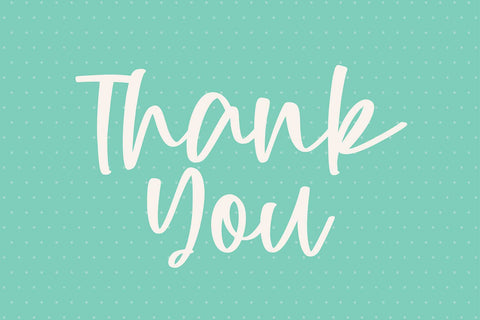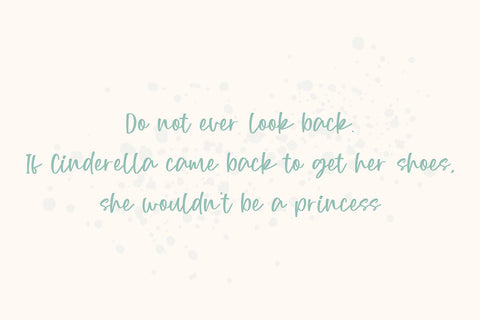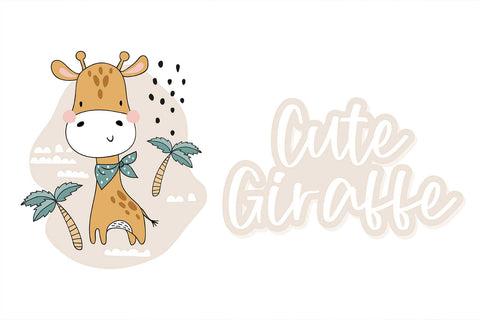
Sunday Morning - A Handwritten Script Font
Sunday Morning is a handwritten script font that perfect for branding, wedding, t-shirt, card, invitation and so much more. this font PUA encoded, so you can easy to use.